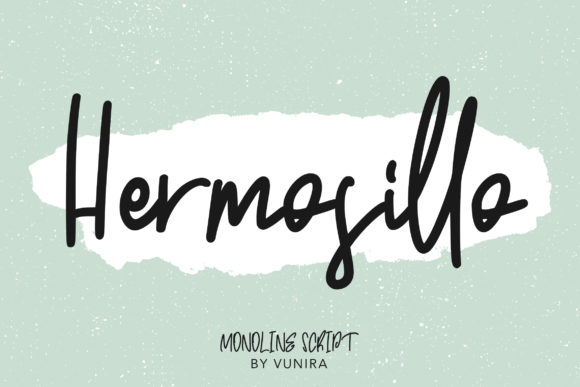
Hermosillo Font Review for Handmade Labels
Last Tuesday, I found myself staring at a blank candle label template in my design software, feeling completely uninspired by the standard script options in my library. As a maker who produces small-batch soy candles and coordinating stationery, I needed a typeface that felt personal yet polished enough to justify a premium price point on my shop listing. That is when I decided to test Hermosillo, an exquisite handwritten font that promised to bridge the gap between traditional calligraphy and modern aesthetics. After spending the afternoon applying this Script Handwritten typeface to actual product mockups, sticker sheets, and packaging designs, I can confidently say it has earned a permanent spot in my creative toolkit for elevating handmade goods.
Hermosillo for Candle Labels and Product Packaging
When evaluating Hermosillo for physical product applications like candle labels and packaging, this Script Handwritten font immediately distinguished itself through its exceptional balance of elegance and legibility. In my testing on a 3x4 oval matte vinyl label, the letterforms maintained their classy calligraphic influences without becoming muddy or difficult to read against textured paper stock. Many decorative Fonts struggle when scaled down for product identifiers, but Hermosillo retains its crisp edges and intentional stroke variation even at smaller sizes suitable for jar labels. The contemporary flow of the characters allowed me to create a scent name, "Wild Fig & Cedar," that looked hand-lettered rather than typed, instantly adding perceived value to the finished good.
For fellow makers designing packaging, it is worth noting how this typeface interacts with different materials. On glossy surfaces, the refined swashes catch the light beautifully, while on uncoated kraft paper, the organic weight of the strokes feels authentic and grounded. I specifically tested the font for ingredient lists and warning text, and while it shines as a display element, I recommend pairing it with a clean sans serif for dense regulatory information. Hermosillo is masterfully designed to become a true favorite for hero text on boxes, bags, and tags, but letting it breathe with ample negative space is key to maintaining that fresh, high-end boutique look that customers love.
Using Hermosillo for Wedding Invitations and Stationery
Designing wedding suites requires a delicate touch, and Hermosillo serves as an ideal primary typeface for invitations, welcome signs, and place cards where emotional resonance matters most. During my review process, I laid out a sample invitation suite and was struck by how the font’s natural rhythm mimics the cadence of professional penmanship, making digital prints feel intimately personal. For stationery designers and printable creators, this Script Handwritten style offers enough character to stand alone as a monogram or couple’s names without needing excessive floral embellishments to fill the space. The ligatures connect smoothly, avoiding those awkward gaps that often plague lesser quality Fonts in formal settings.
I also tested Hermosillo on acrylic welcome board mockups and vellum overlay designs, two trending elements in modern wedding stationery. The font’s contemporary freshness ensures it does not look dated or overly Victorian, which is crucial for couples seeking timeless yet current aesthetics. When using this typeface for editable templates intended for Etsy or Creative Market, the consistent baseline and x-height make it incredibly user-friendly for end-customers who may not be typography experts. It maintains its classy calligraphic influences while feeling accessible, allowing DIY brides to achieve professional results simply by typing their details. Just remember to check the included alternates and swashes, as these extra glyphs provide the custom flourishes that turn a standard invitation into a keepsake.
Hermosillo in Digital Printables and Wall Art Design
Creating digital downloads and printable wall art demands versatility, and Hermosillo excels as a focal point for quotes, affirmations, and nursery decor. As a printable creator, I often worry about how intricate scripts will render when customers print at home on standard inkjet printers, but this Script Handwritten font proved remarkably resilient during my test prints. The stroke weight is substantial enough to prevent fading or pixelation at larger scales, making it perfect for 8x10 or 11x14 inspirational quotes. Unlike some overly ornate Fonts that lose definition in black and white printing, Hermosillo relies on structural beauty rather than texture, ensuring your digital products look just as stunning in grayscale as they do in color.
For social media graphics and Pinterest pins promoting these digital products, Hermosillo provides instant visual hierarchy. I used it to create story templates and listing thumbnails, finding that the font’s distinctive personality stops the scroll more effectively than generic handwriting styles. However, a practical tip for digital sellers: always verify your commercial licensing terms before incorporating Hermosillo into flattened templates or SVG cut files. While it is exquisite for display purposes, avoid using it for long paragraphs of instructional text within your printables; reserve it for titles and short phrases to maintain readability and impact. This strategic use ensures your digital assets remain both beautiful and functional for your buyers.
Cutting Machine Compatibility and Readability Tips
For Cricut and Silhouette users, the true test of any Script Handwritten font is how well it cuts on vinyl and cardstock without tearing or weeding nightmares. I loaded Hermosillo into my cutting software to test adhesive vinyl decals for tumblers and iron-on transfers for tote bags, and I was pleasantly surprised by its cutter-friendly construction. The connections between letters are solid and deliberate, reducing the risk of fragile points snapping during the weeding process. This makes it a reliable choice for merchandise makers who need consistent production quality across dozens of units. Fonts with hairline connections often fail in real-world crafting, but Hermosillo feels robust enough for physical manufacturing while retaining its delicate visual appearance.
Despite its durability, there are limitations to consider for optimal results. Avoid scaling Hermosillo below 0.75 inches for intricate words, as the internal counters (the enclosed spaces in letters like 'e' or 'a') may close up during cutting or printing. For shirt designs and apparel, I recommend using the bold or regular weight rather than attempting to artificially thicken the font in your software, which can distort the carefully crafted curves. Always perform a test cut on your specific material before committing to a full production run. Additionally, because this typeface has such strong personality, it pairs best with simple, geometric sans serifs or minimalist serifs for supporting text. Letting Hermosillo take center stage without competing visual noise ensures your handmade items maintain that professional, masterfully designed aesthetic that justifies higher price points and builds brand recognition.